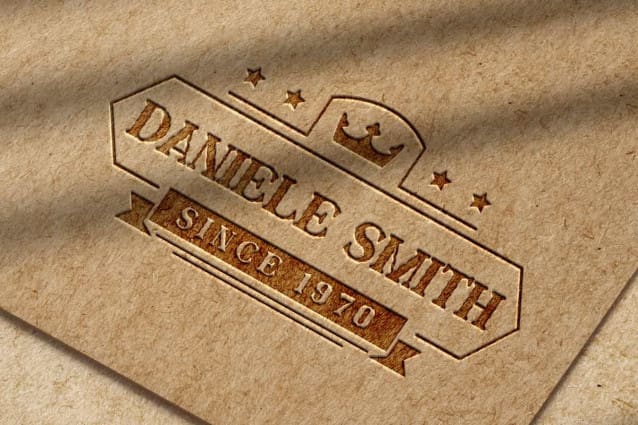
Vintage Friends Font
Vintage Friends Font is a unique retro inspired serif display font with decorated letters. This font can give a vintage vibe with the unique texture in each character. It will be perfect for any designs, such as brand image, cover, custom design, invitation, label, marketing material, menu, poster, product packaging, quotes, signage, stationery, web, and many more!
Vintage Friends Font includes full set of Uppercase and Lowercase Basic Characters, Numerals, Punctuation, and Symbol. This font has unique and stylish looks which is perfect choice for many industries, such as accessories, advertising, art, cafes, event or festival, fashion, printing, publishing, etc.